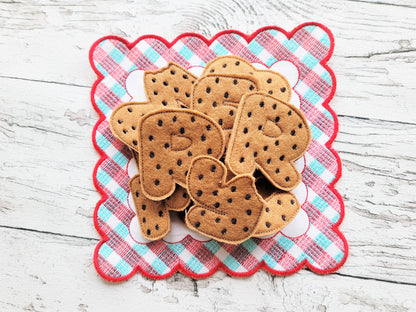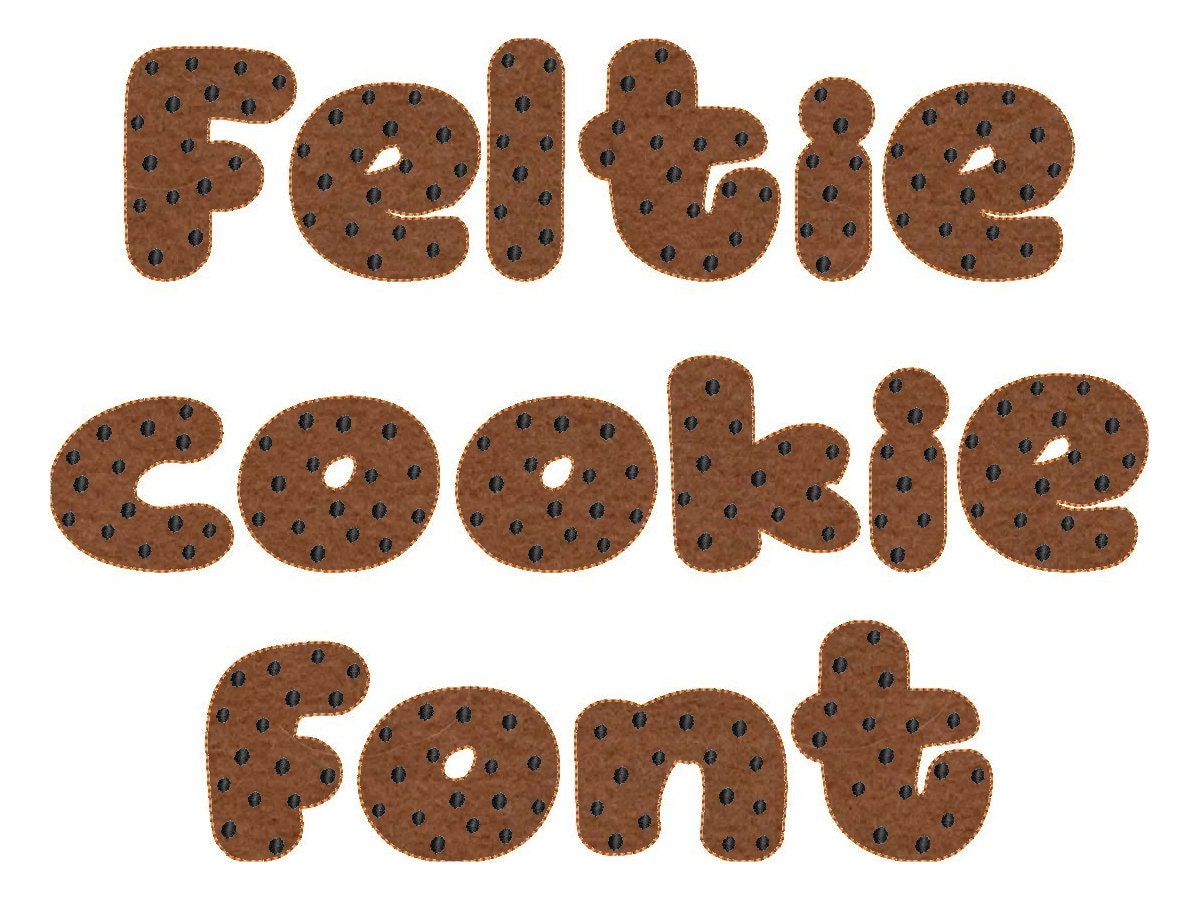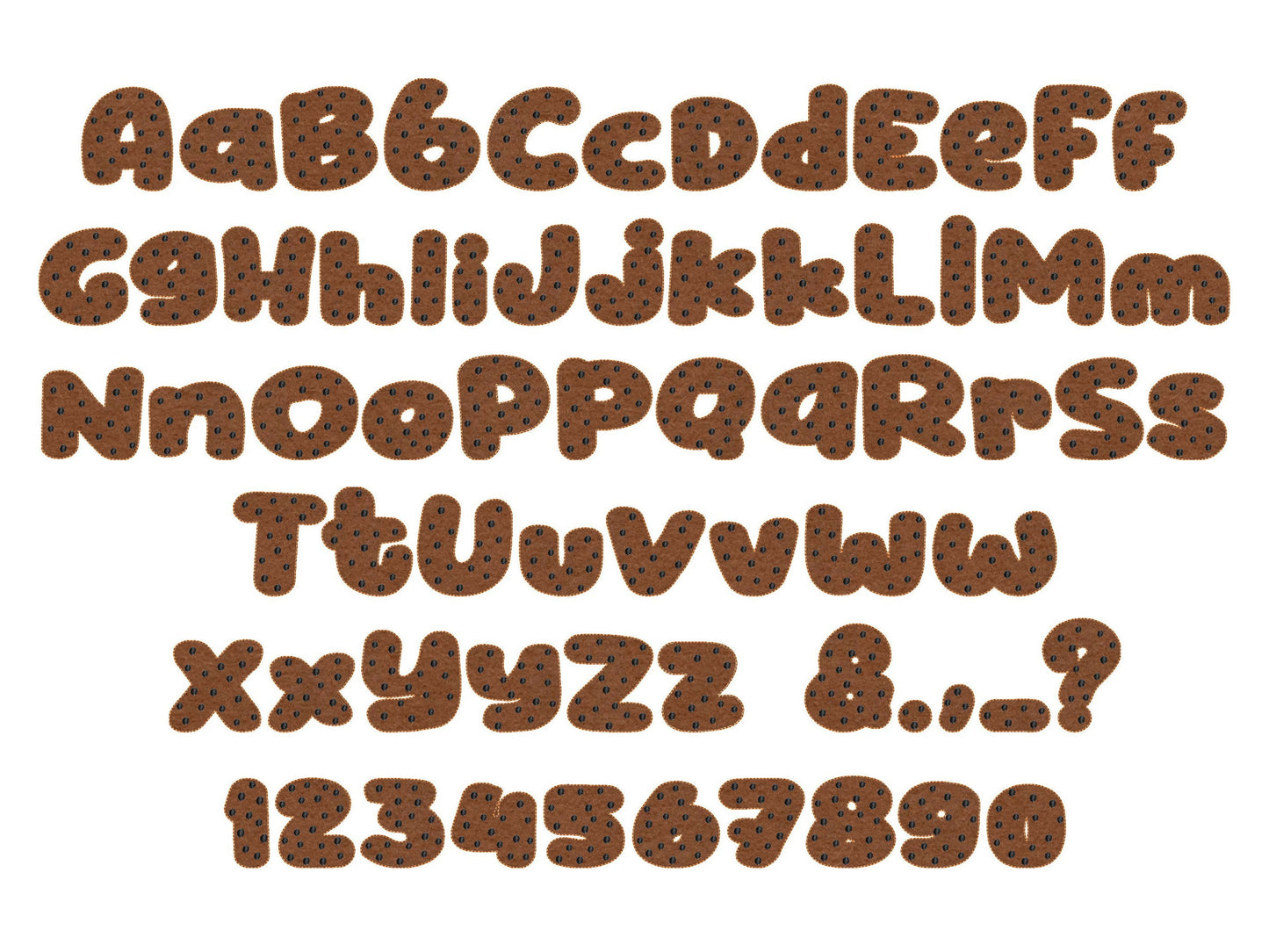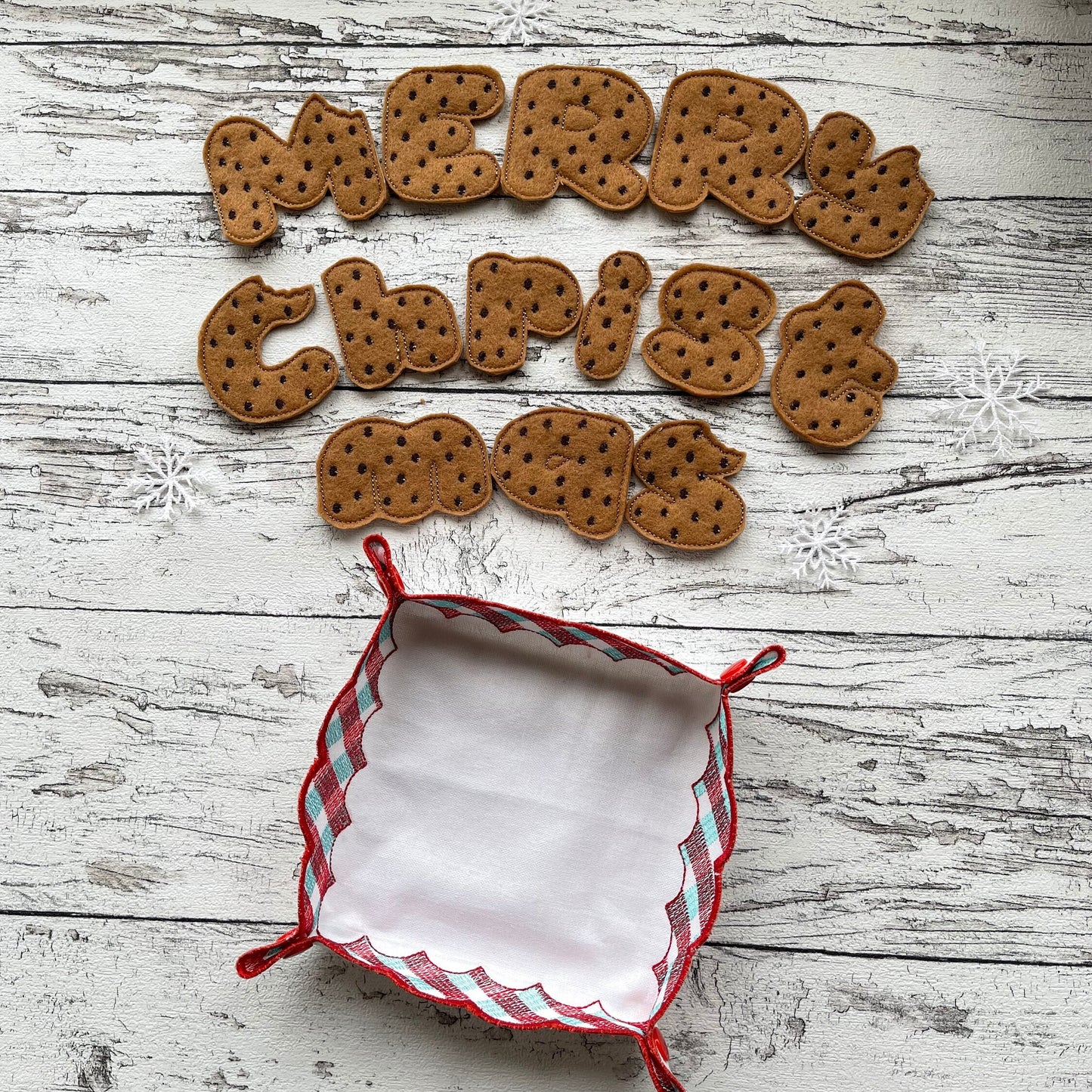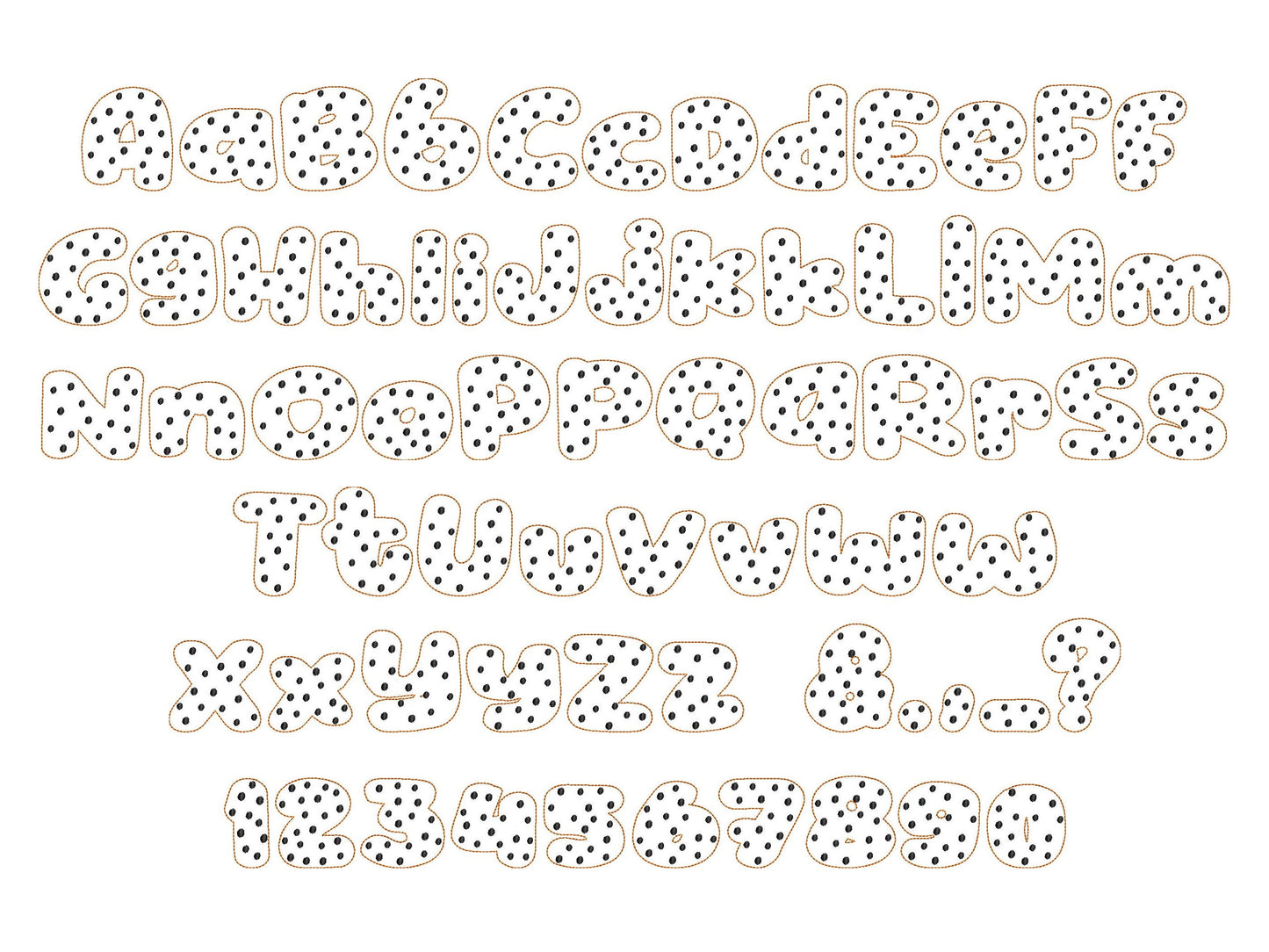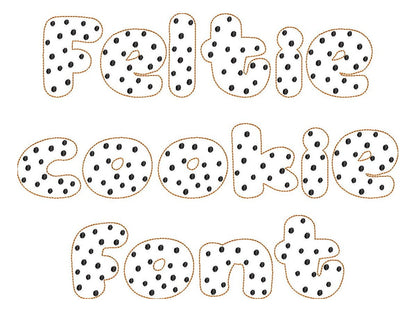
Or click to open the linkChocolate chip cookie letters for a playful kids' alphabet. Use them as felties or applique for learning to read, bows, clips and party decor.
Uppercase and lowercase letters, numbers 0 to 9, plus &, period, comma, dash, question mark and slash. Five sizes: 1.5, 2, 2.5, 3.5 and 4 inches.